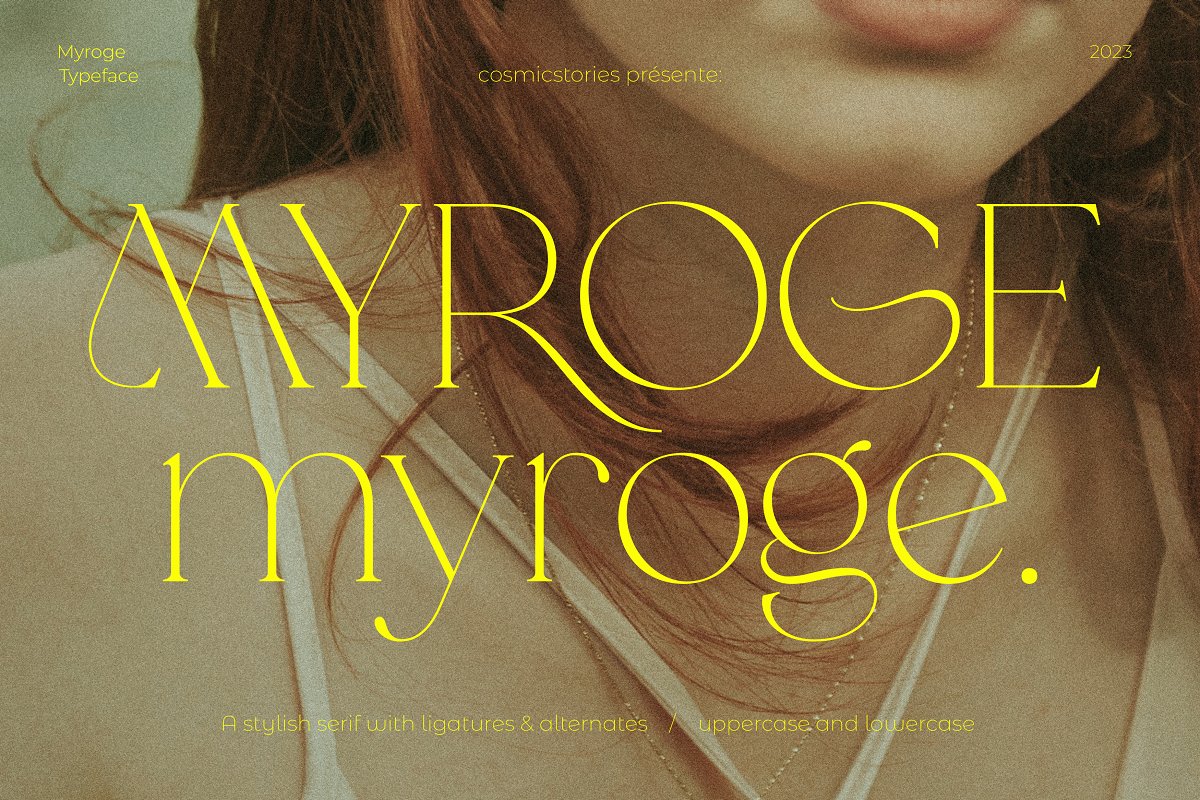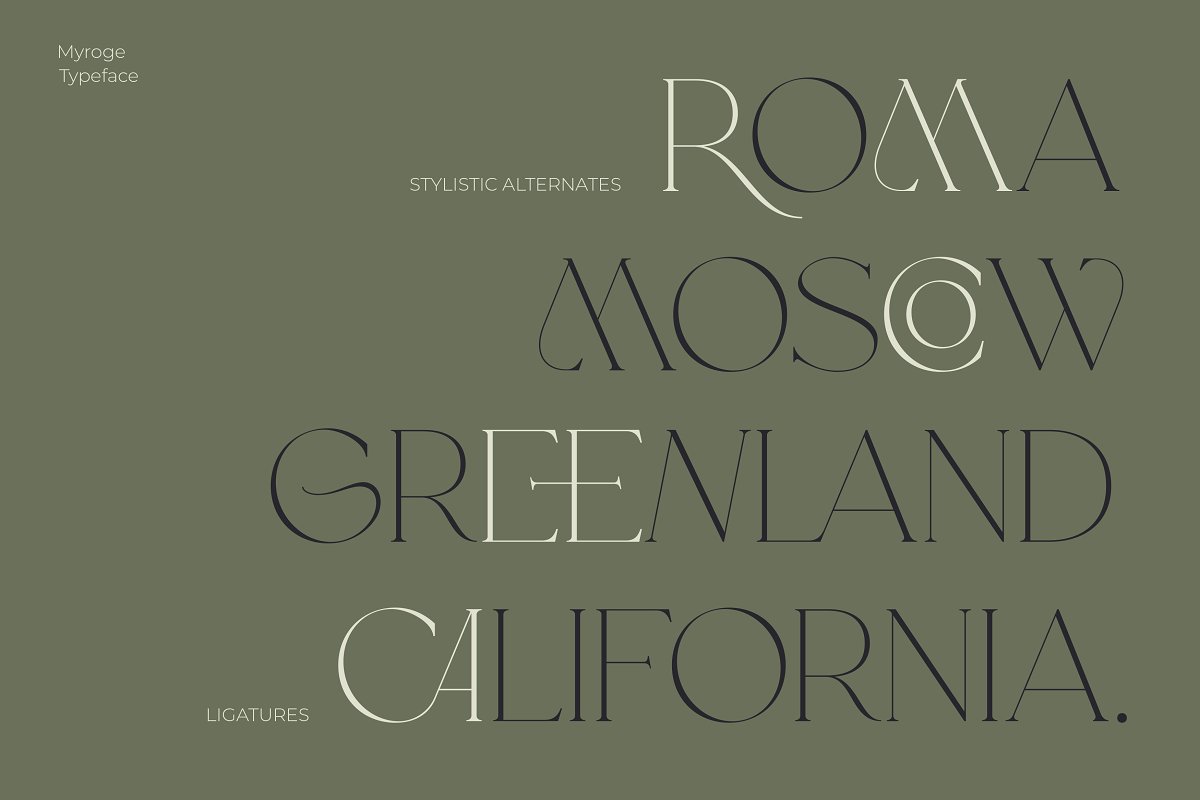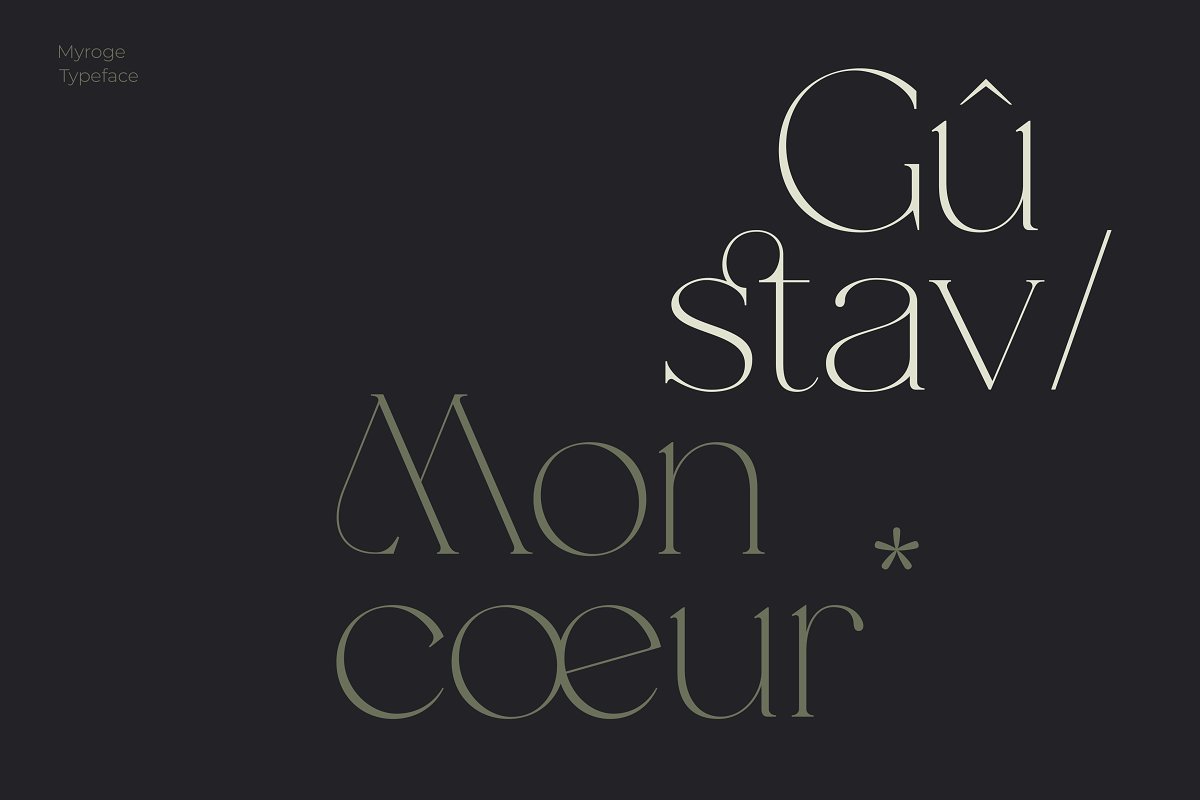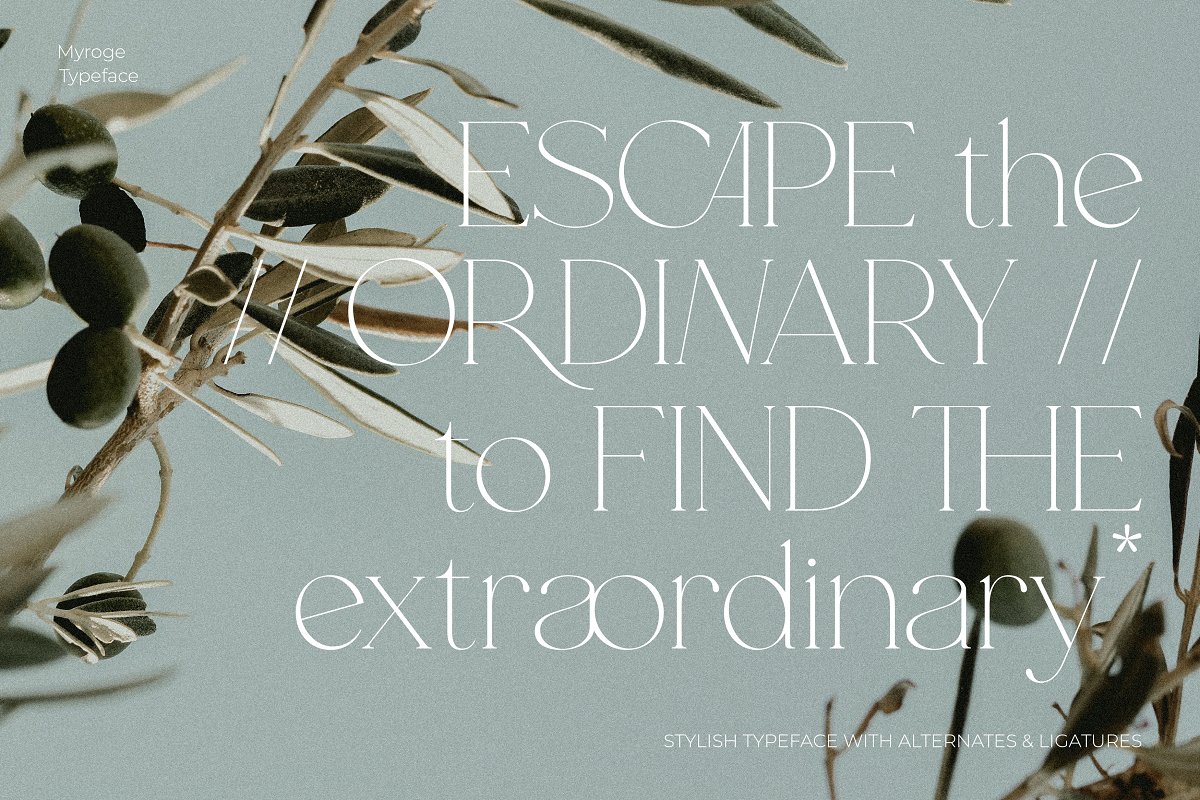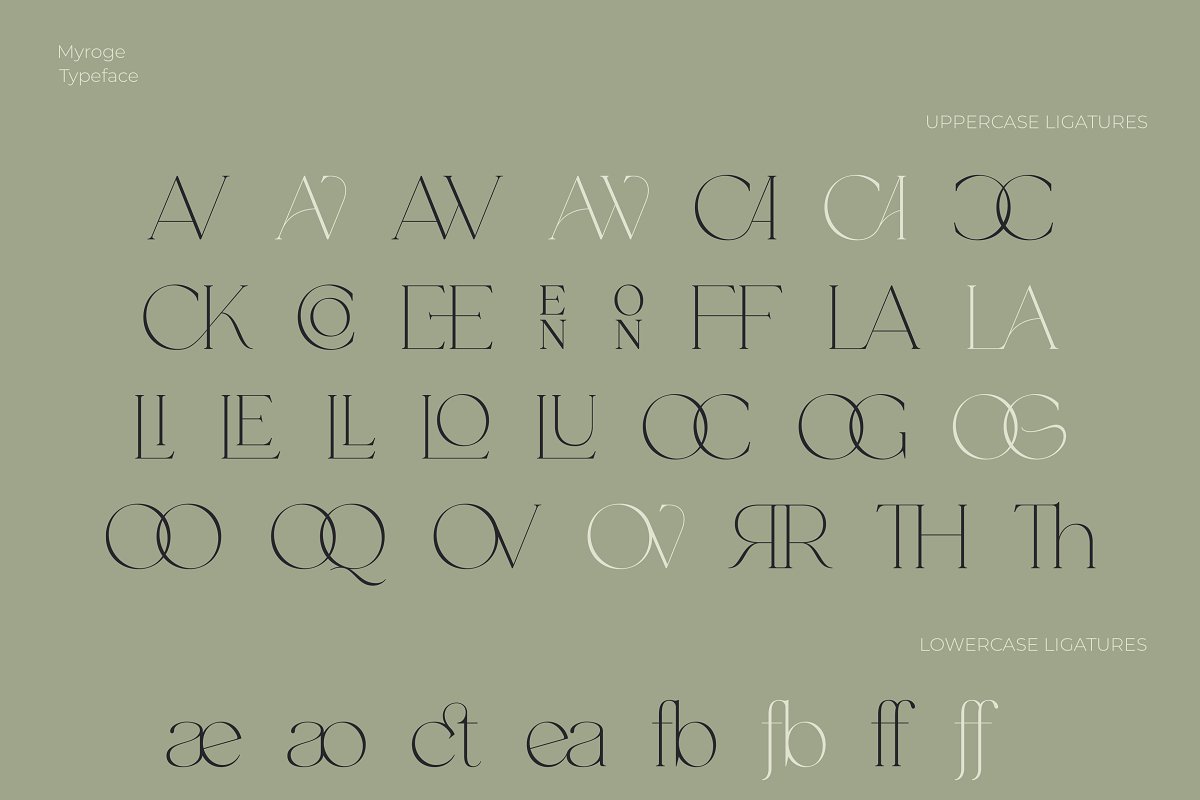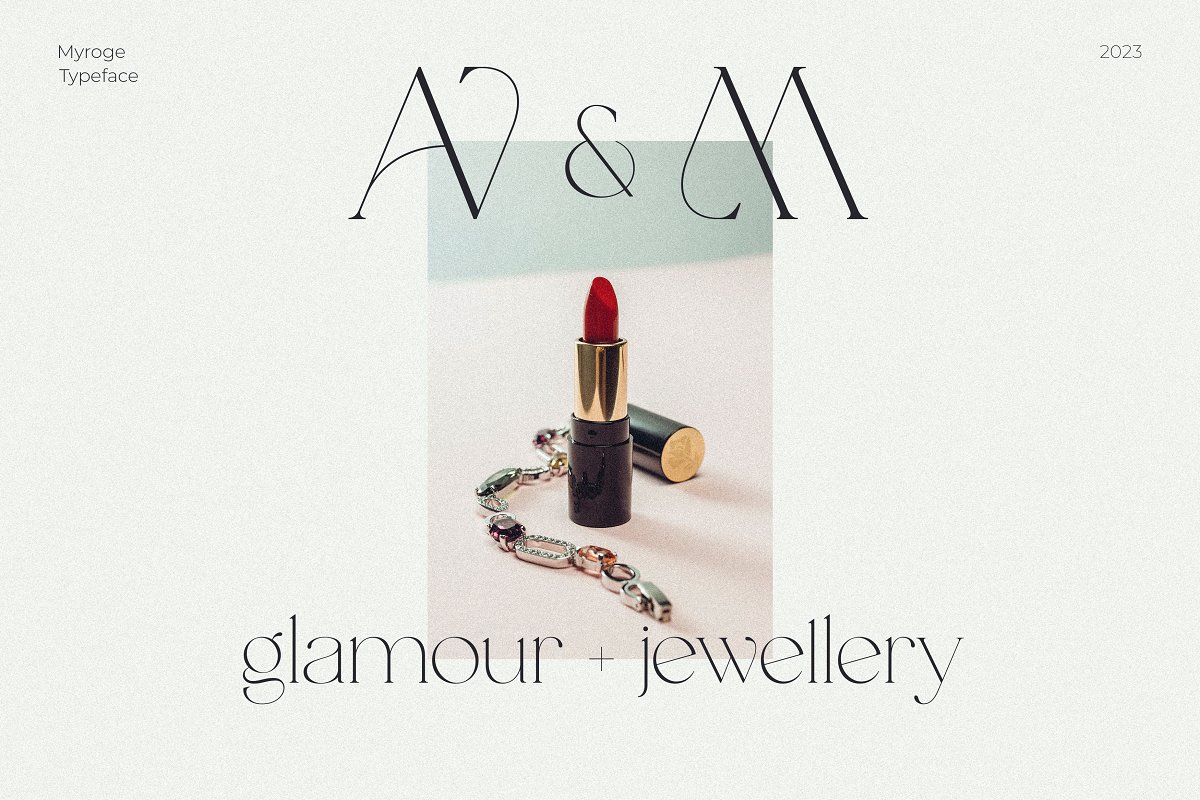
About the MYROGE elegant & stylish serif
CosmicStories introducing MYROGE, an extremely elegant and fragile serif font with beautiful ligatures and alternate glyphs, This typeface includes multilingual support, and it will be perfect to upgrade your brand to an entirely new level, MYROGE includes a full set of OTF, TTF, WOFF and WOFF2 files with:Uppercase basics, alternates & ligaturesLowercase basics, alternates & ligaturesMultilingual supportNumbersPunctuation, symbols and accentsTo access the extra Opentype alternates and ligatures a software that supports Opentype features is required, such as Adobe Illustrator, Photoshop or inDesign